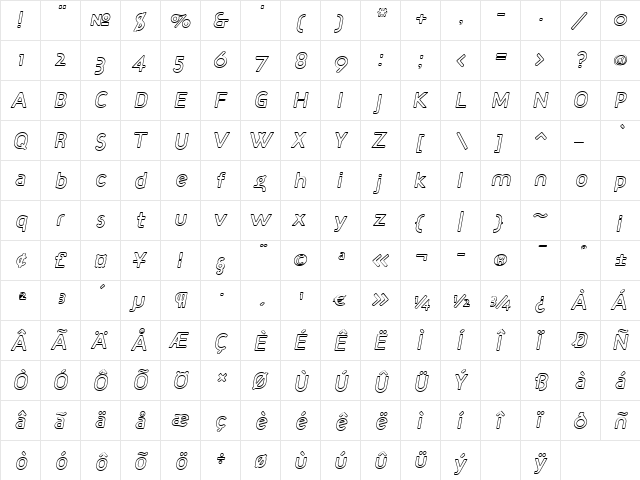
TargetOpenItalic Regular
TargetOpenItalic is a composed and adaptable typeface that performs quietly and consistently across a wide range of design contexts. The slanted form adds forward momentum and visual energy.